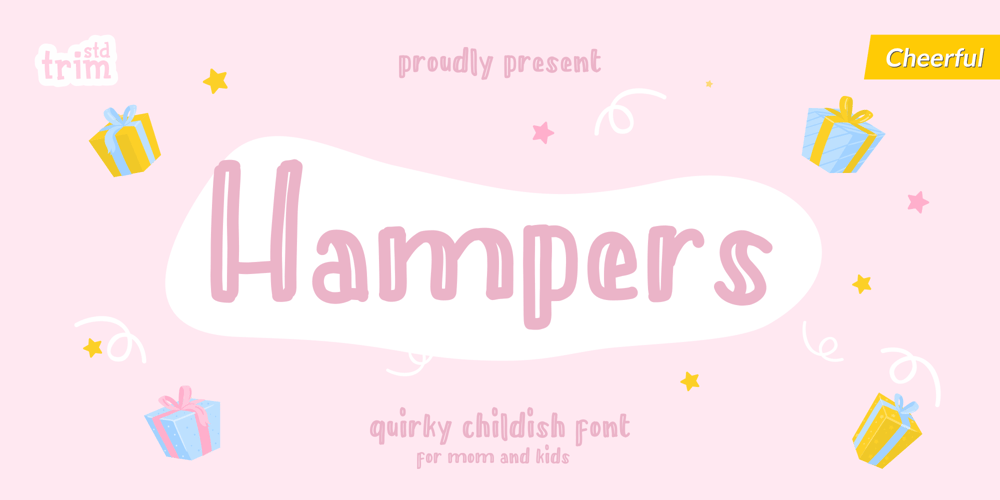
Hampers
Hampers font
Hampers Font Family was designed by Deri Kurnia and published by Trim Studio. Hampers contains 1 styles and family package options. Hampers is cute double line typeface with handwritten style and kawaii touch, to match the design type of cuteness and kids,, especially in precious moment like baby shower, birthday, christmas, easter and many more,, Its perfectly suited for crafter and graphic artist to complete their design such as invitation, advertisement, poster, logo, birthday, product sign, and many more!Hampers also Lightweight, even so contains All Standard glyphs and punctuations